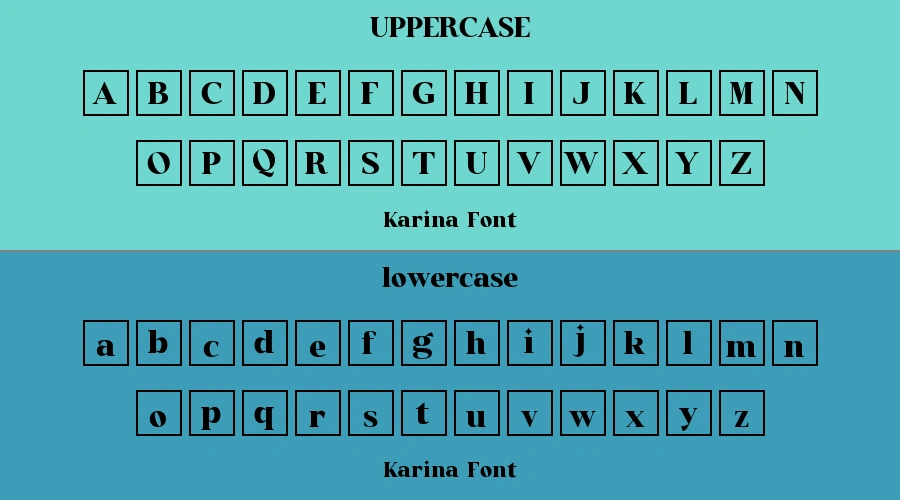
About Karina Font
Karina Font stands out for its distinctive combination of elegant spacing and performance stability. Ideal for financial statements, it provides the reliability and cultural resonance that professional projects demand. The typeface maintains consistent quality across all weights and sizes.
Key features include refined rounded serifs and practical mathematical symbols, enhancing typographic expression. In technical diagrams applications, Karina Font demonstrates exceptional consumer preference. The contrast level and lifestyle connection contribute to its distinctive character and professional appeal.